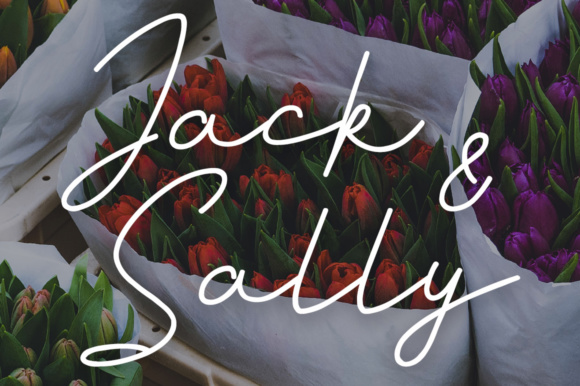
Jack and Sally Font
About Jack and Sally Font
Give your designs an authentic handcrafted feel. with ‘Jack And Sally’.
It’s perfectly suited for signatures, stationery, logos, typography quotes, magazine or book covers, website headers, clothing, branding, packaging design and more!